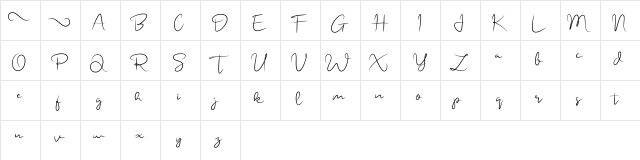
onelove Regular
Design Context for onelove Typeface
onelove is a composed and adaptable typeface that performs quietly and consistently across a wide range of design contexts.